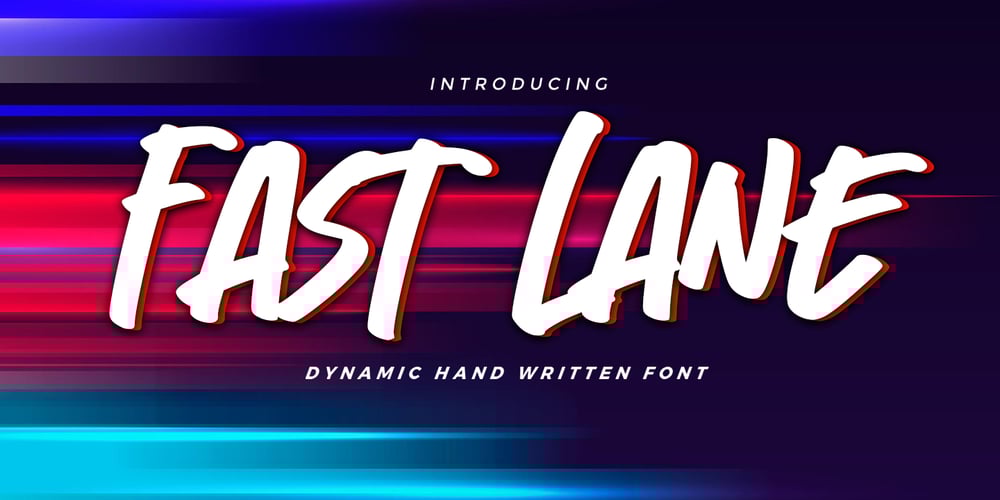
Fast Lane Font Family was designed by Abdul Malik Wisnu, Anang Fibriyanto and published by Gassstype. Fast Lane contains 1 styles and family package options. Here comes a New font,Introducing Fast Lane – Dynamic Handwritten Font with a natural style and dramatic movement. Crafted manually with love and passion, This font is great for your next creative project such as logos, printed quotes, invitations, cards, product packaging, headers, Logotype, Letterhead, Poster, Label, and etc.This handmade font will make your design has a beautiful natural touch for each details. It is perfect for any design project as Invitation,logo, book cover, craft or any design purposes,photos, photography overlays, signs, window art, scrapbooking, tags and so much more!This font is PUA encoded which means you can access all of ligatures glypsh.